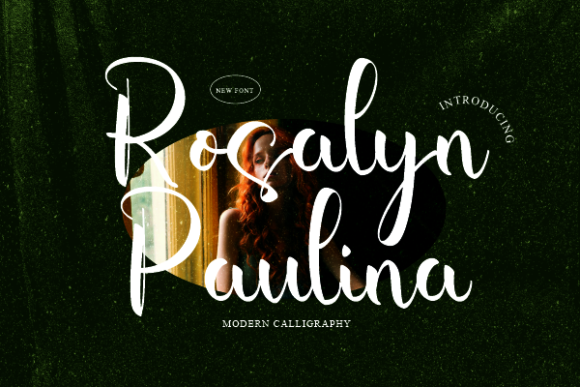
Get ready to infuse your fashion blog with a captivating charm that will leave your readers breathless with the Rosalyn Paulina Font, the ultimate choice for fashion enthusiasts who demand distinction.
Immerse yourself in the world of Rosalyn Paulina, a mesmerizing handwritten font crafted by the talented Synthetic Type. Prepare to be captivated by its distinctive and well-balanced letters, seamlessly blending sophistication and playfulness, making it an absolute masterpiece.
Elevate your fashion blog to new heights with Rosalyn Paulina, a font that speaks to the heart. Its incredibly versatile style empowers you to create spectacular designs that will leave a lasting impression. Imagine your blog posts adorned with captivating headlines, elegant body text, and stunning call-to-actions, all brought to life by this exquisite font.
Embrace the endless possibilities that Rosalyn Paulina presents. Let your creativity flourish as you craft content that captures the essence of fashion. Unleash your individuality and stand out from the crowd with a blog that oozes sophistication and elegance.
Don't settle for ordinary fonts that fail to leave a mark. Choose Rosalyn Paulina, the font that will revolutionize your fashion blog. Experience the allure of a font that speaks volumes, captivating your readers and leaving them longing for more.
Elevate your fashion blog beyond the realm of ordinary and into the extraordinary with Rosalyn Paulina. Indulge in a font that embodies grace, allure, and a touch of whimsical charm. Make your blog a true reflection of your unique style and watch as it blossoms into a captivating masterpiece.